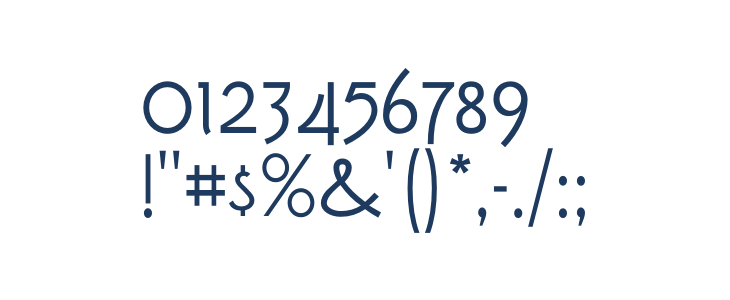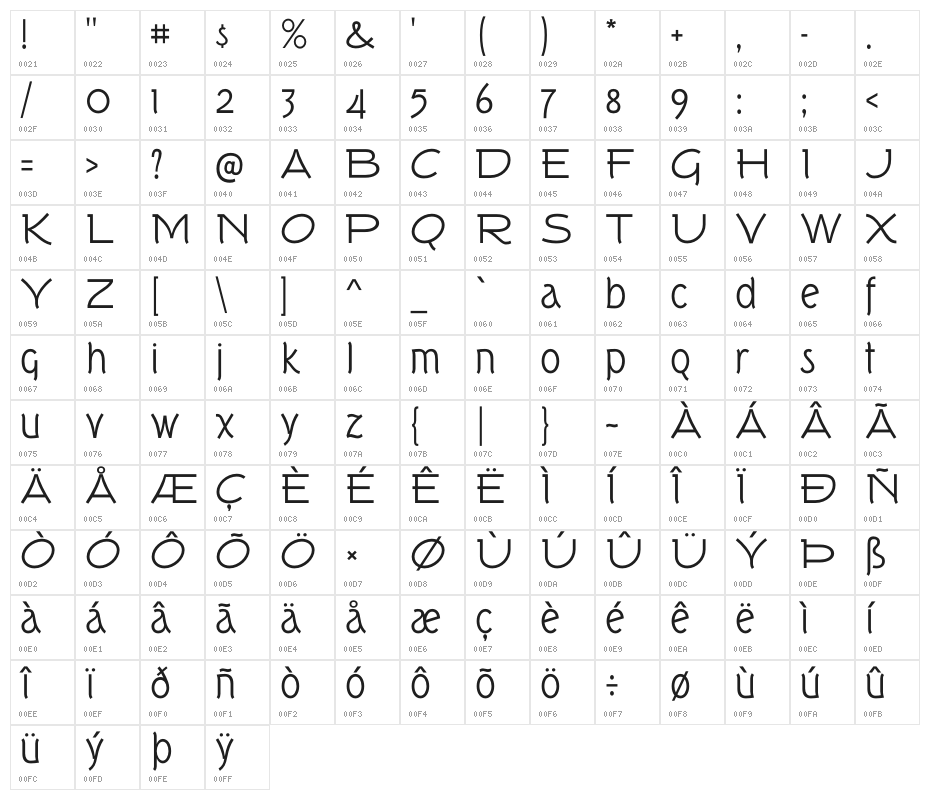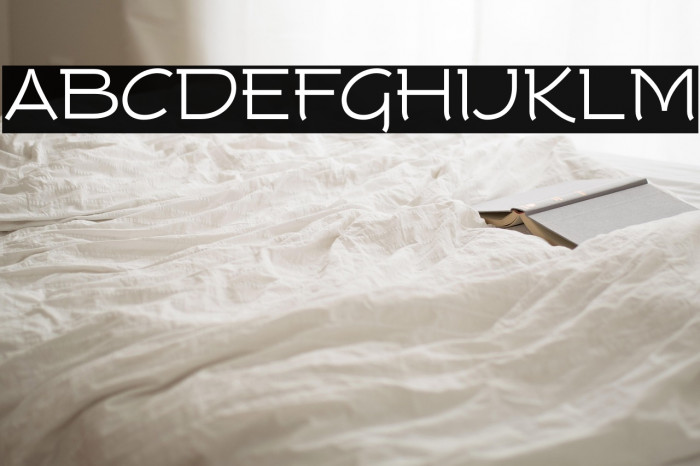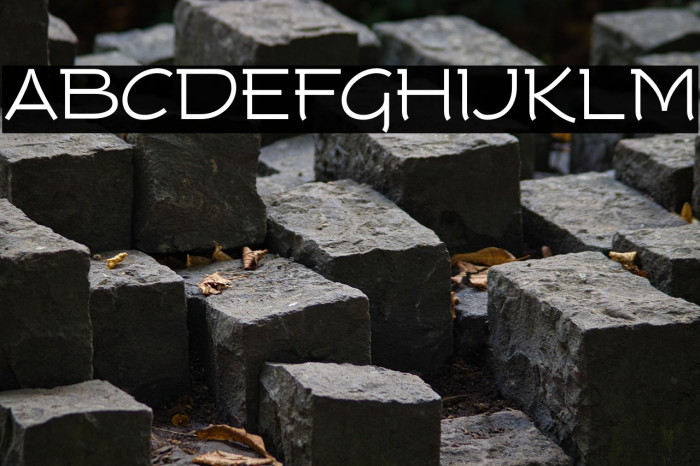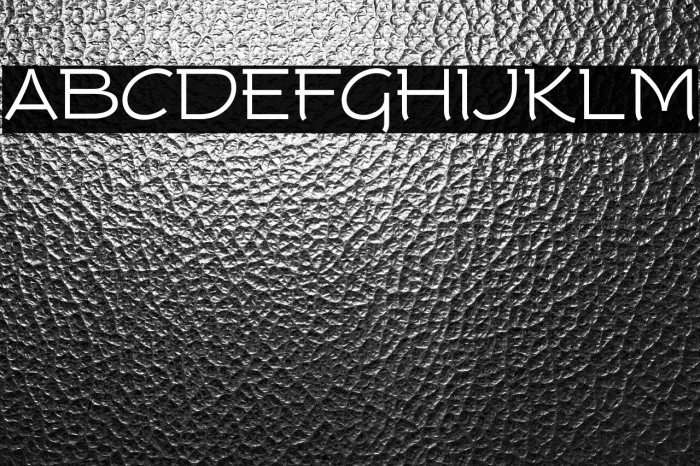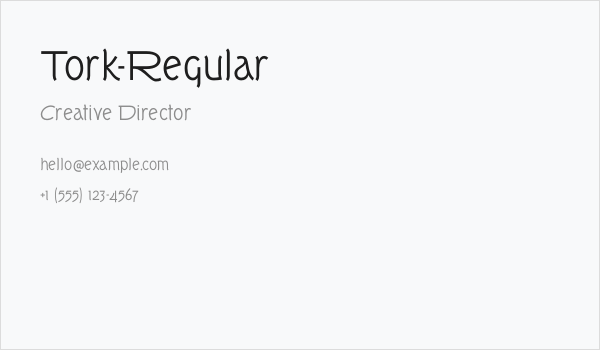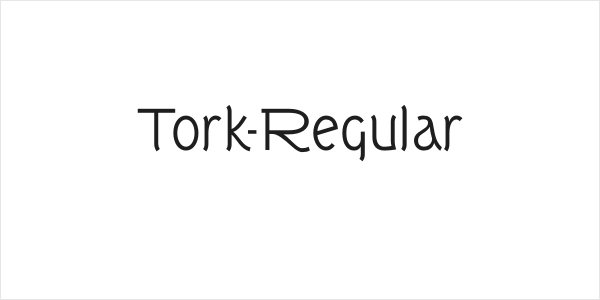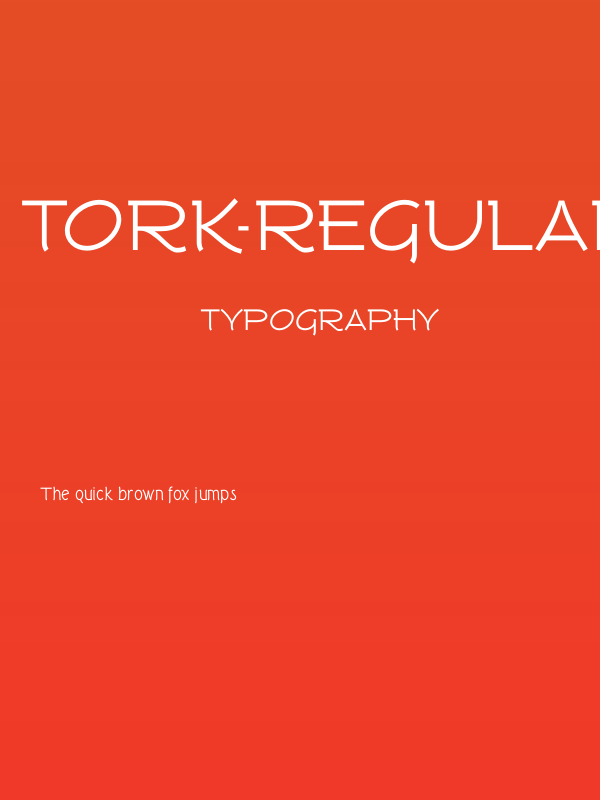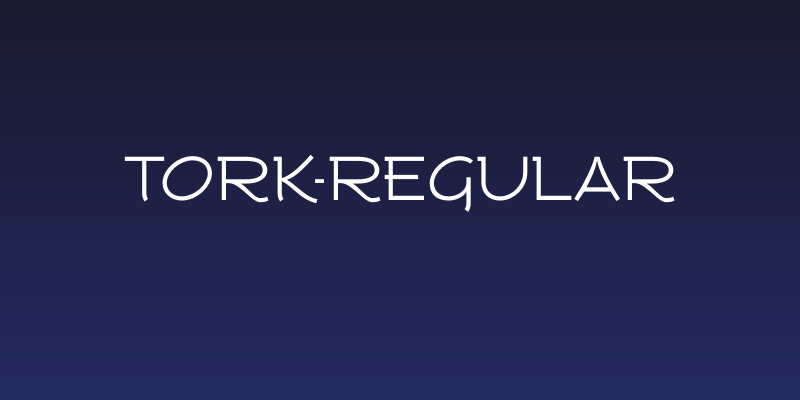
Tork-Regular Font
Tork-Regular Description
This font features a unique blend of geometric and organic shapes, creating a modern yet approachable aesthetic. The uppercase letters are characterized by sharp angles and clean lines, while the lowercase letters introduce a more fluid and rounded form. The numerals maintain a consistent style with the alphabet, offering clarity and readability. Special characters are thoughtfully designed to complement the overall look, making this font versatile for various applications. Its distinct style is suitable for projects that require a contemporary and artistic touch.
| Proposed Projects | Ideal for branding, advertising, and editorial design where a modern and artistic flair is desired. |